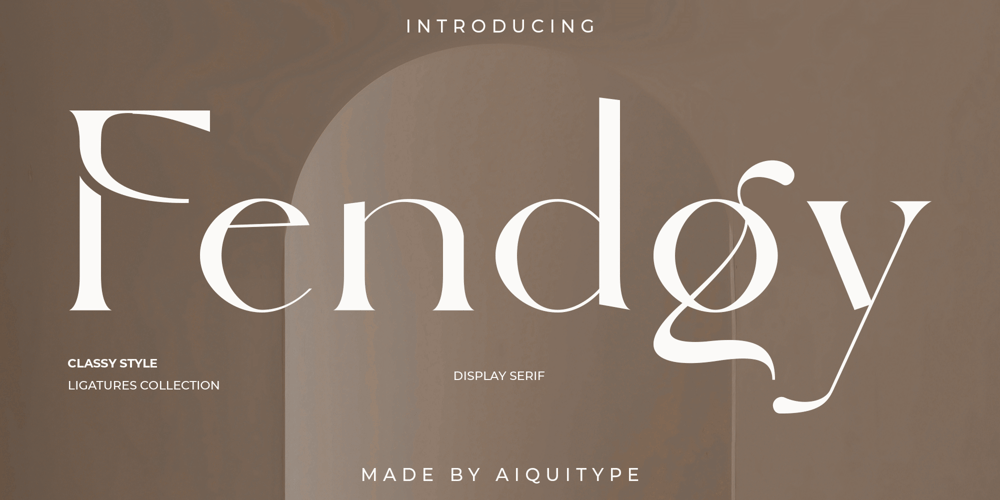
Fendgy
Fendgy font
Fendgy Font Family was designed by Achmad Aprilia Pratama and published by Aiquitype. Fendgy contains 1 styles and family package options. Introducing “Fendgy – Classy Display Serif Font”.Fendgy-Classy Display Serif Font is an elegant and refined typeface that exudes a timeless sophistication. With its meticulously crafted letterforms, this font embodies a perfect balance between classic charm and contemporary design. Its graceful strokes and distinctive serifs make it an ideal choice for luxurious branding, editorial design, and upscale packaging, imparting a sense of refined exclusivity to any project.What’s Included?1. PUA Encode2. Uppercase, Lowercase, Numerals and Punctuation3. Ligature Collection4. Stylistic Alternate5. Installed on Mac and Windows6. Language Support : Western Europe7. Multilingual SupportEnjoy Our Font!